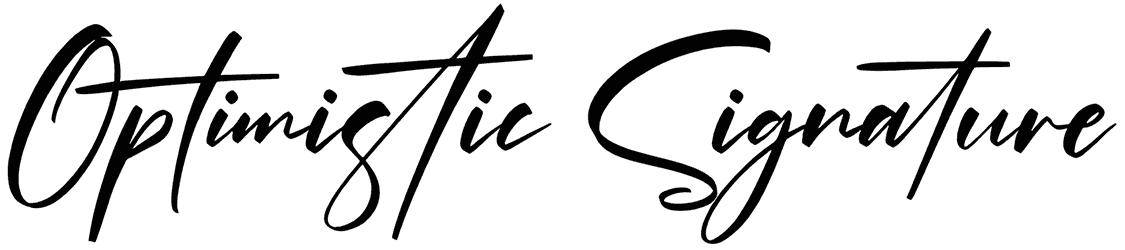
Optimistic Signature Font
Surpass your boundaries by trying one of our awesome handwriting fonts. Optimistic Signature is a perfect example, with curved and continuous lines creating a delightful mood that changes the whole tone of your content.